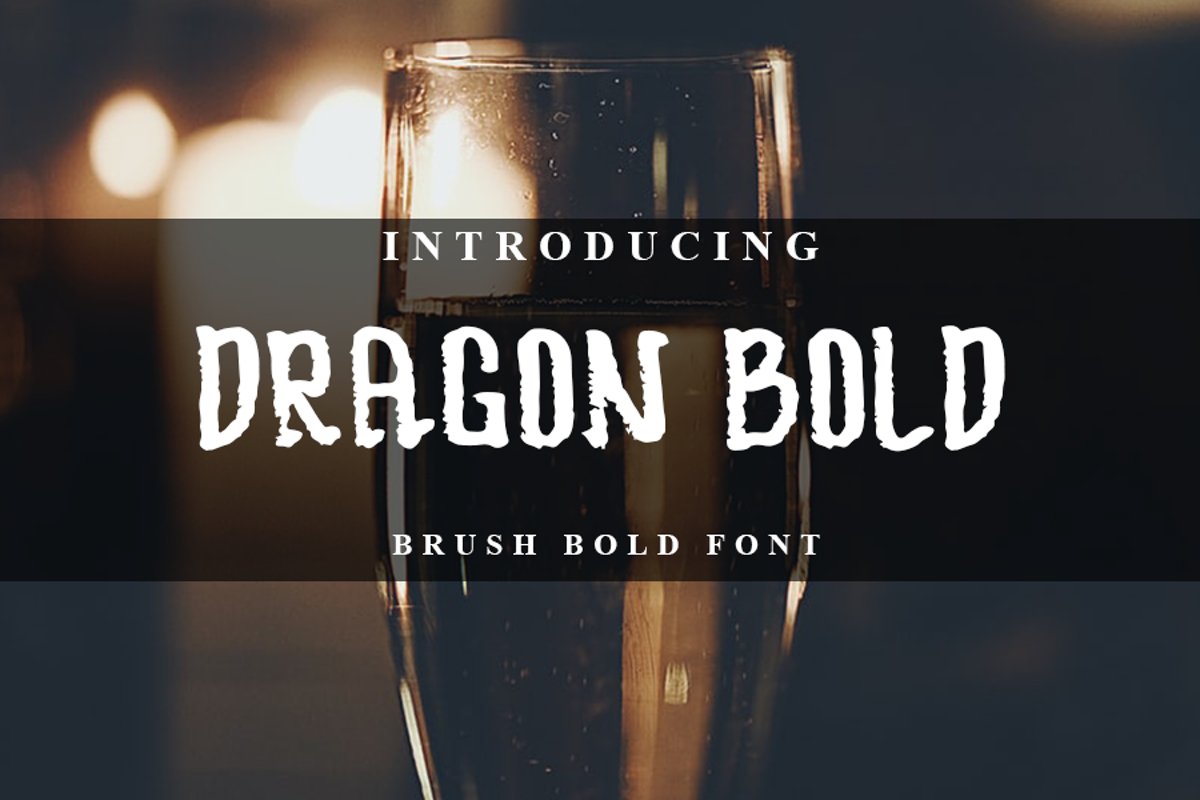
Dragon
DRAGOON BOLD
Dragon is a casual, elegant handwritten font, created by using a brush pen. Clean and a little bit quirky, this font is the perfect fit for all of your logos, branding, social media, and crafty DIY projects.